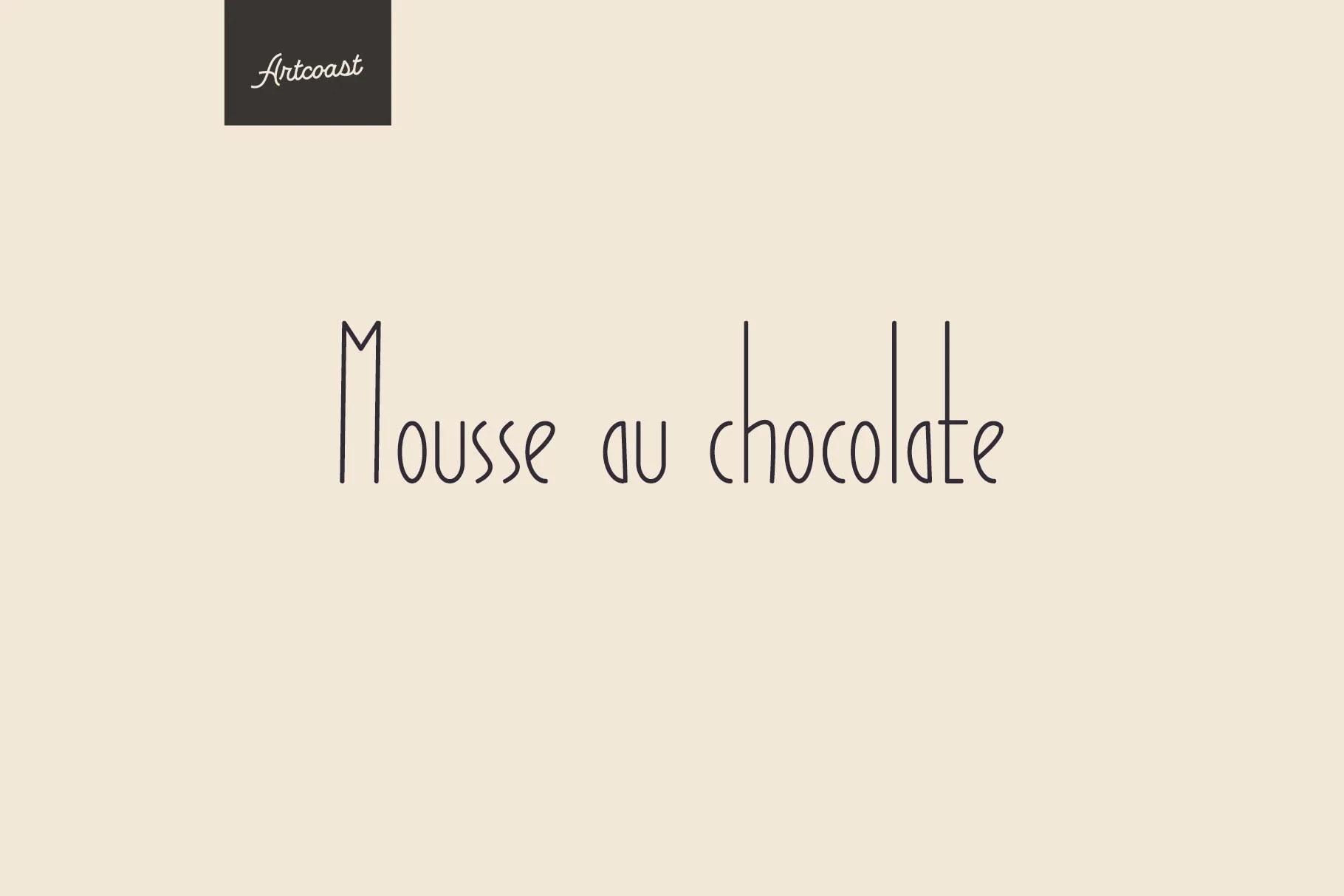
Montclar Handwritten Font: Add Unique Charm to Your Designs
Introducing Montclar - your new handwriting-style font of choice for modern branding! This cute, sweet font is carefully crafted to give your work the unique and authentic look it deserves. Montclar’s highly readable design offers a genuine feel and makes projects stand out in a crowd of generic fonts.
Bring your designs to life with its softly curved lines and endearingly spaced letters. Whether you use it as a romantic headline or for whimsical packaging, Quotes or illustrations, Montclar will deliver the kind of charm and personality you’re looking for. From chic book covers to cheerful illustrations, be sure to make Montclar part of your library of distinctive fonts.
So why try this delightfully hand-lettered font? Consider it a tribute to timeless nostalgia – while still being totally modern - that’s sure to bring character and depth to any project. Let Montclar give you the desired effect with its well-crafted spaces between lines and letters, inviting layout and practically placed characters — all come together perfectly. Perfect for creating eye-catching designs in greeting cards, children's books, logos or even website design & typography. The possibilities are endless!